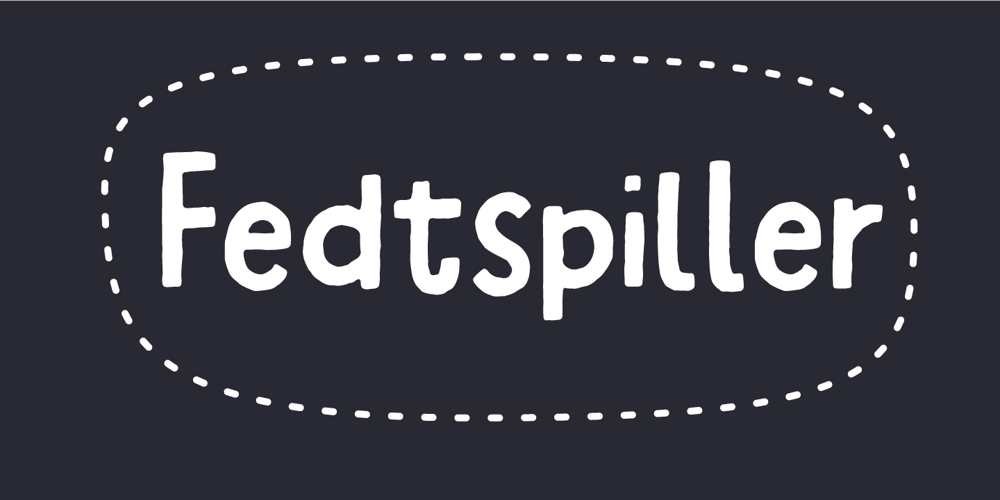
Fedtspiller Font Family was designed by Jakob Fischer and published by PizzaDude.dk. Fedtspiller contains 3 styles and family package options. Fedtspiller is danish and the definition could be someone who plays with a low risk and defensive (at least when talking about soccer) Although there is a slight negative feeling to that, I remember several guys when playing soccer as a kid who benefitted as playing as a “Fedtspiller” :)Anyway, Fedtspiller is a legible comic/text font with softened edges. Comes in both Regular, Scribble and Rough – all of these versions include Contextual Alternates (4 different versions of each lowercase letter) and multilingual support